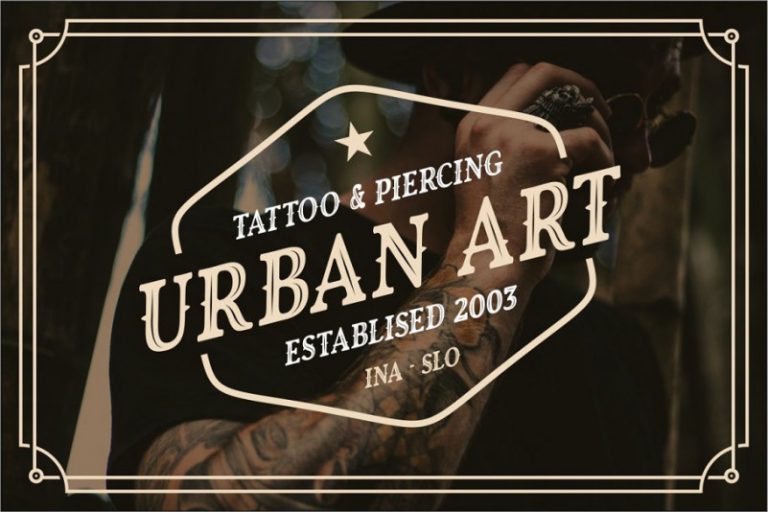
Royal King Typeface
Royal King Typeface is present inside Microsoft Word. This typeface is also known as Enfield and regal font and it is for free. This pinnacle-notch font has made considerably in a top-notch kind retaining an opentype define the shape.
That could be a glamour that is similar to the font. The completes letters together with this monetary business enterprise ra bali font feature top-notch satisfied.
Style of Royal King Typeface Free